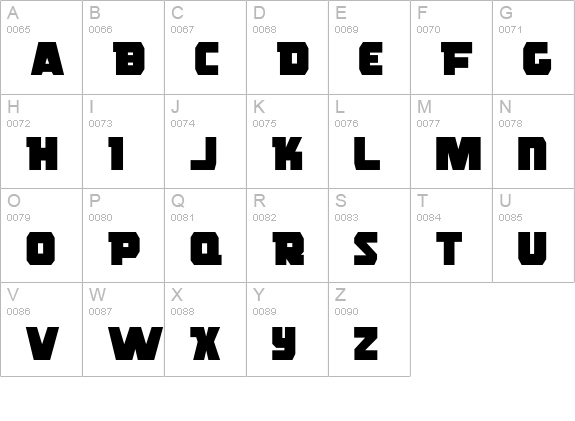
Rogue Hero font is a bold and adventurous typeface that exudes a sense of mystery and daring. With its sharp edges and rugged appearance, this font is perfect for designs that require a touch of rebellion and defiance. Each letter is meticulously crafted to convey a sense of individuality and uniqueness. The Rogue Hero font is available for free download at FontsMarket.com, making it easily accessible for designers and creatives looking to add a touch of boldness to their projects. Whether you're working on a poster, logo, or website design, Rogue Hero font will help you stand out from the crowd and make a lasting impression. Embrace your inner rebel with the Rogue Hero font and unleash your creativity with this powerful and dynamic typeface. Download it for free today and start creating designs that are bold, daring, and unforgettable.